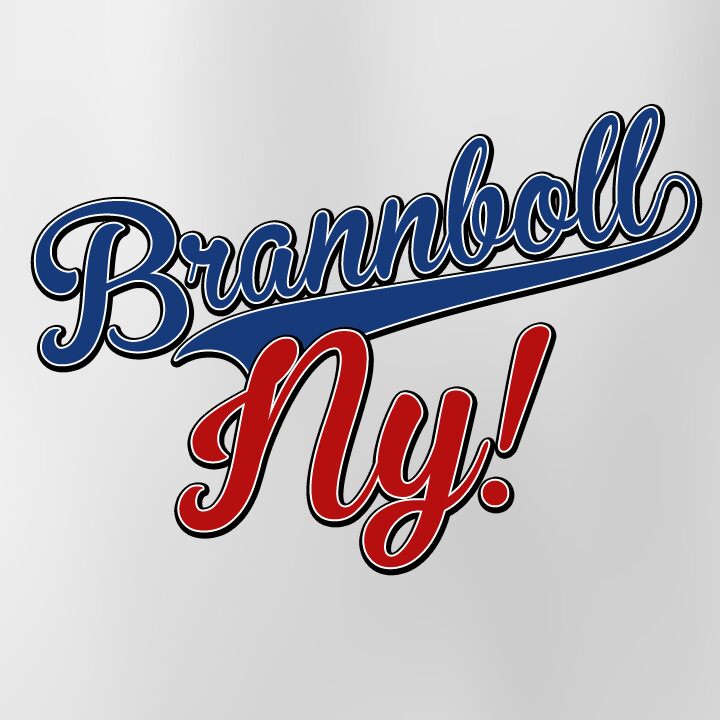
Brannboll Ny by Måns Grebäck is a free calligraphic script with sweeping capitals, dramatic loops, and a lively change from broad downstrokes to hairline joins. Its letterforms are generous and theatrical.
Wedding invitations and boutique branding draw on its elegant movement, yet the same oversized flourishes also suit album covers and event posters with a more flamboyant direction. In packaging, the lettering can become the central mark for perfume or confectionery brands that use ornament as part of their product identity.